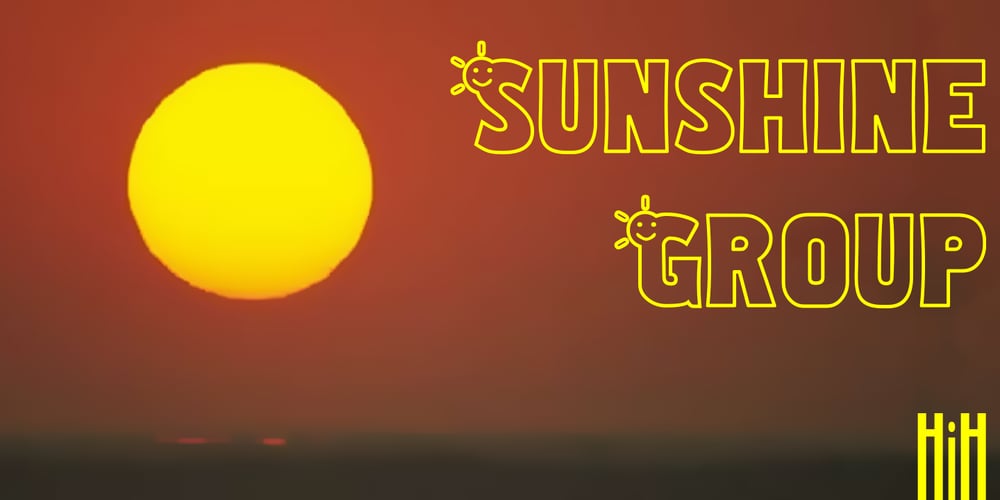
Sunshine Group
Sunshine Group font
Sunshine Group Font Family was designed by published by HiH. Sunshine Group contains 4 styles and family package options. The Sunshine Group is a series of four closely related fonts that combine a visual rendition of a bright noonday sun with Page No. 508, a wood type designed by William Hamilton Page of Norwich, Connecticut in 1887. Page No. 508 was released in a digital version by HiH and is available from Myfonts.com. Woody Sunshine is the simplest. The name alludes to its wood type roots. The sun shines on the upper case letters only (and the ampersand, which is considered lower case). Double Sunshine has the sun on both upper and lower case. Smiley Sunshine adds a smiley face to the first font. Double Smiley adds it to the second font. Warning: immoderate use of Double Smiley may expose the user to charges of overly aggressive cuteness. Please be careful. The Culture Vultures are lurking in the treetops.